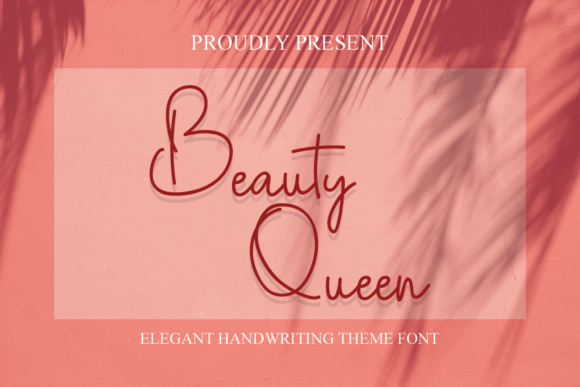
Unveil the Allure of Beauty Queen: A Script Font That Captivates
Prepare to be mesmerized by Beauty Queen, a script font that exudes elegance and charm. This meticulously designed font, brought to life by the talented artisans at Erik Studio, is a testament to the power of artistry and attention to detail. With its graceful curves, delicate flourishes, and captivating charm, Beauty Queen is more than just a font; it's an invitation to a world of beauty and creativity.
Immerse yourself in the world of Beauty Queen, a script font crafted with love and precision. Each letter, a work of art, dances across the page with grace and fluidity. Its elegant swirls and intricate details add a touch of sophistication to any project, making it the perfect choice for those seeking to make a statement. Whether you're a seasoned designer or a creative enthusiast, Beauty Queen is your gateway to crafting designs that leave a lasting impression.
Craft Designs That Speak to the Heart
With Beauty Queen as your creative companion, your designs will transcend the ordinary and take on a life of their own. Its timeless beauty lends itself effortlessly to a multitude of projects, from wedding invitations that radiate romance to branding materials that exude professionalism. Create social media posts that captivate your audience, design logos that leave an indelible mark, and craft marketing materials that inspire and engage.
Beauty Queen's versatility extends beyond its aesthetic appeal. This font is a master of adaptation, seamlessly conforming to your creative vision. Whether you're working with digital or print media, Beauty Queen adapts effortlessly, ensuring your designs shine in any medium. Its crisp lines and smooth curves translate flawlessly, guaranteeing stunning results every time.
A Font That Inspires Limitless Creativity
With Beauty Queen at your fingertips, the possibilities are boundless. Unleash your imagination and explore the myriad ways this font can enhance your creative endeavors. Its timeless appeal makes it suitable for a diverse range of projects, from heartfelt love letters and personalized greeting cards to stunning posters and eye-catching advertisements. Embrace the versatility of Beauty Queen and let your creativity soar.